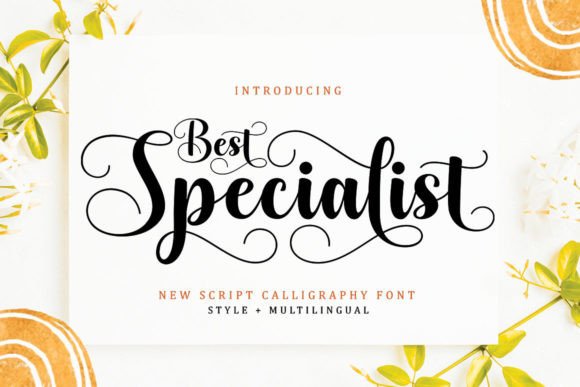
Dive into the world of elegance and creativity with Best Specialist, the calligraphy script font that will captivate your heart. Experience the beauty of flowing characters, each meticulously crafted to evoke a sense of sophistication and charm. Composed by the talented Reyna Studio, this font is more than just a collection of letters; it's an artistic masterpiece waiting to transform your designs into breathtaking creations.
Indulge in the allure of Best Specialist's sweeping curves and delicate flourishes, which dance across the page like a graceful melody. Its intricate details and subtle variations add a touch of exclusivity to your projects, making them stand out from the crowd. Whether you're crafting love quotes, wedding invitations, or branding materials, this font will infuse your words with a timeless elegance that resonates with your audience.
Unleash your creativity and let Best Specialist guide you to new heights of design excellence. Its versatile nature allows you to explore endless possibilities, from heartfelt love letters to enchanting social media posts. With each character you type, you'll feel the passion and dedication poured into this font, inspiring you to create captivating designs that leave a lasting impression.
Embrace the allure of Best Specialist and elevate your designs to the realm of the extraordinary. Let its beauty captivate your audience and create a lasting connection with your brand. Take the first step towards design greatness and download Best Specialist today, the font that will transform your creative visions into unforgettable masterpieces.